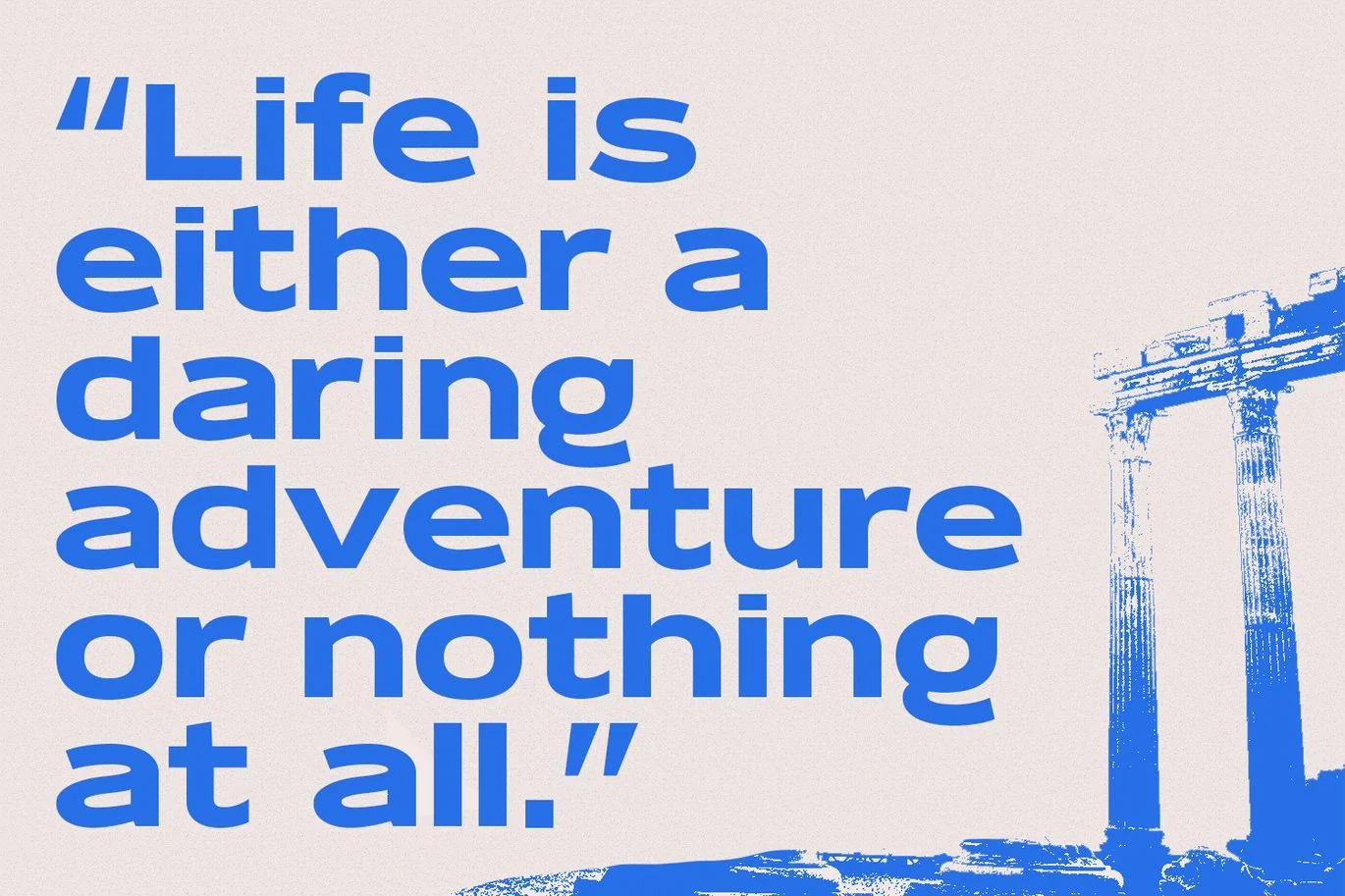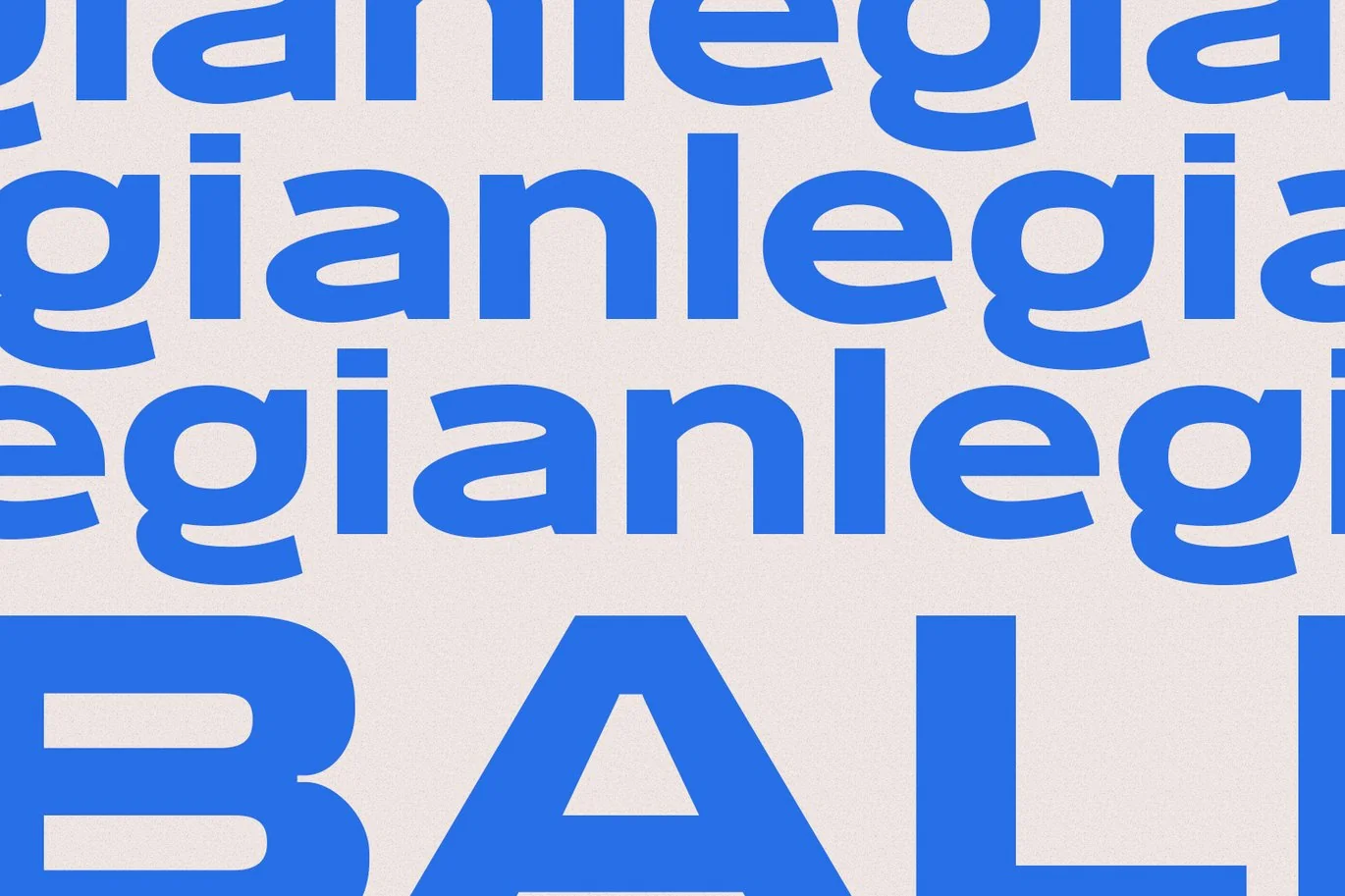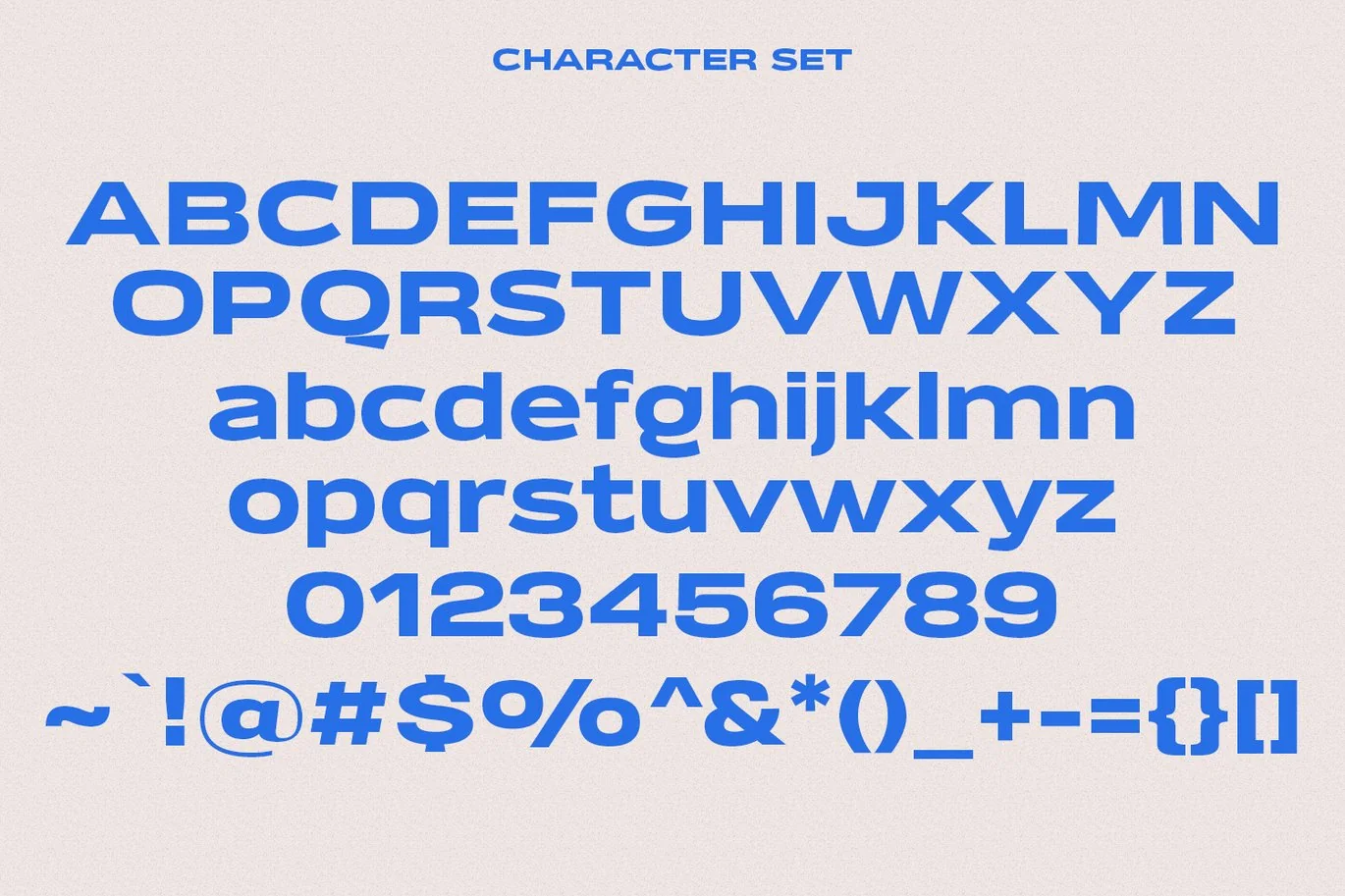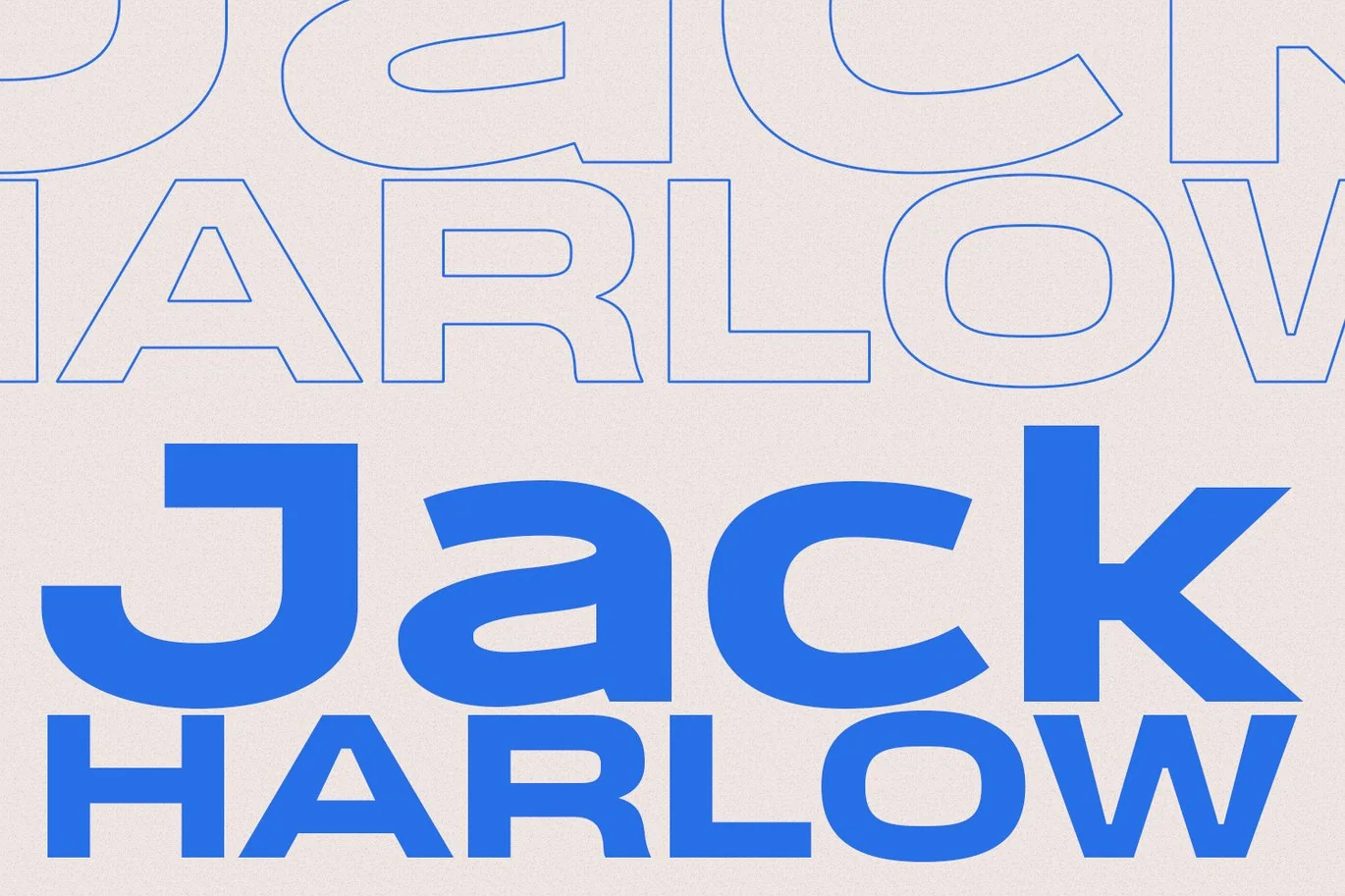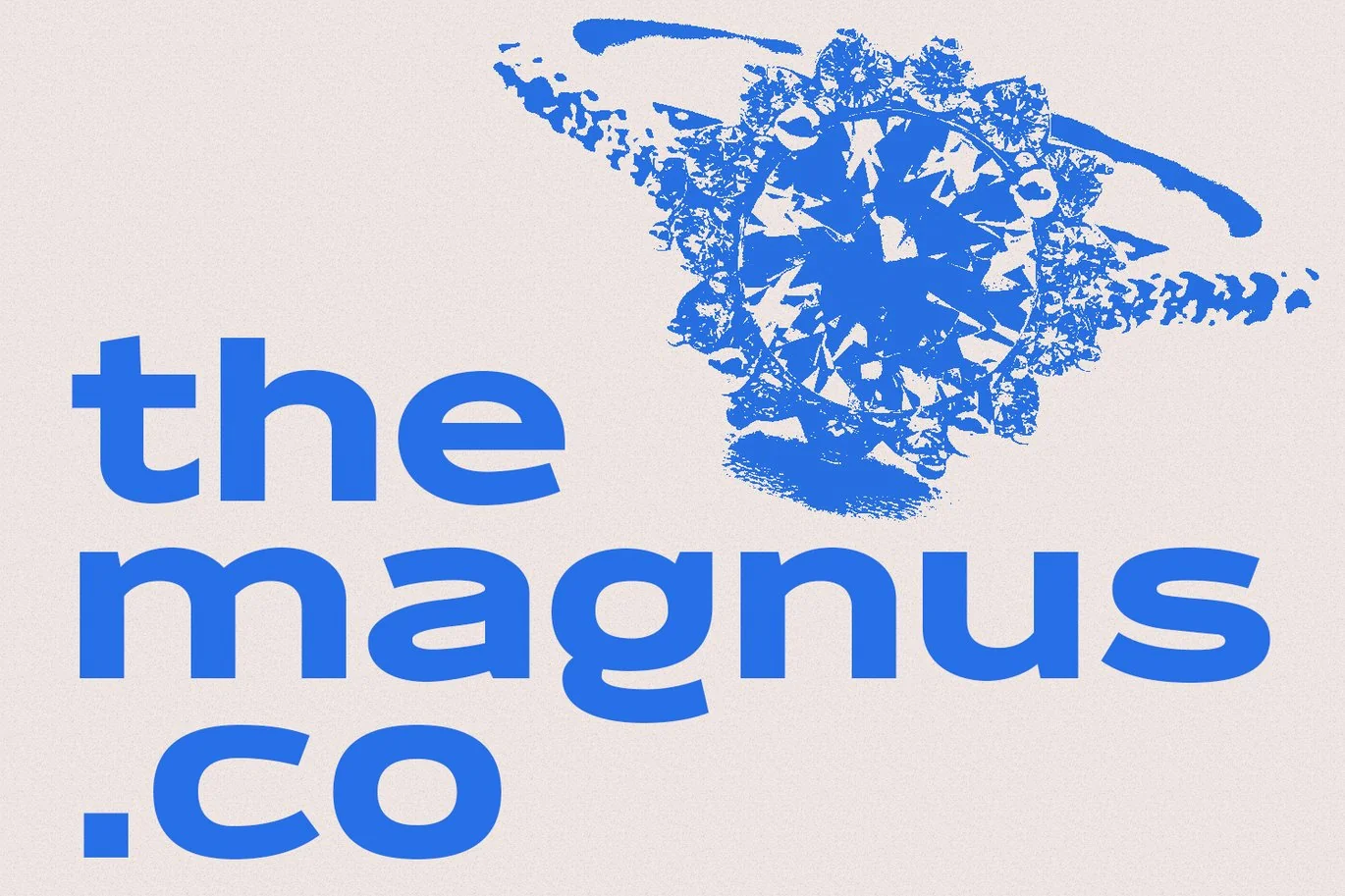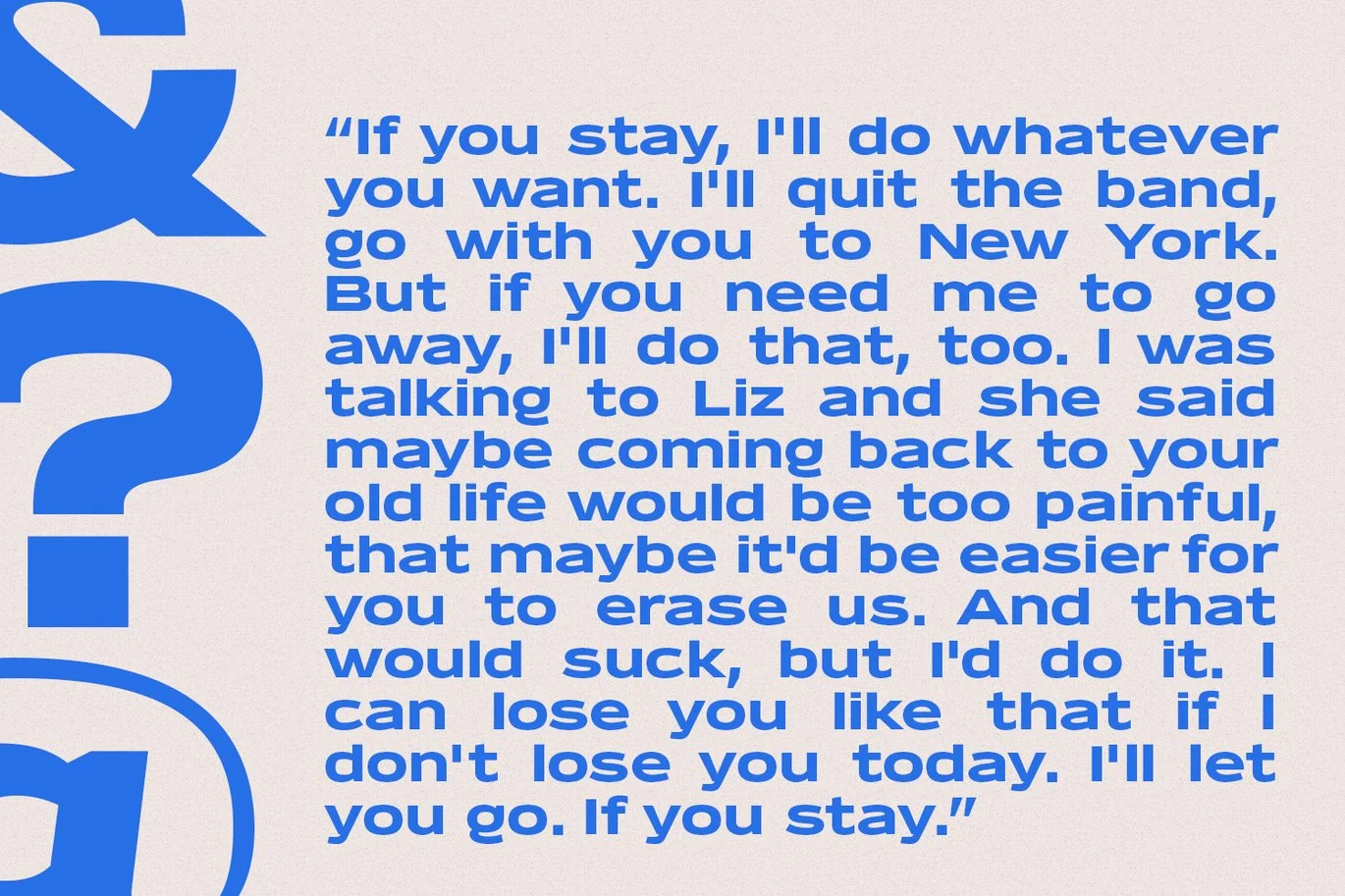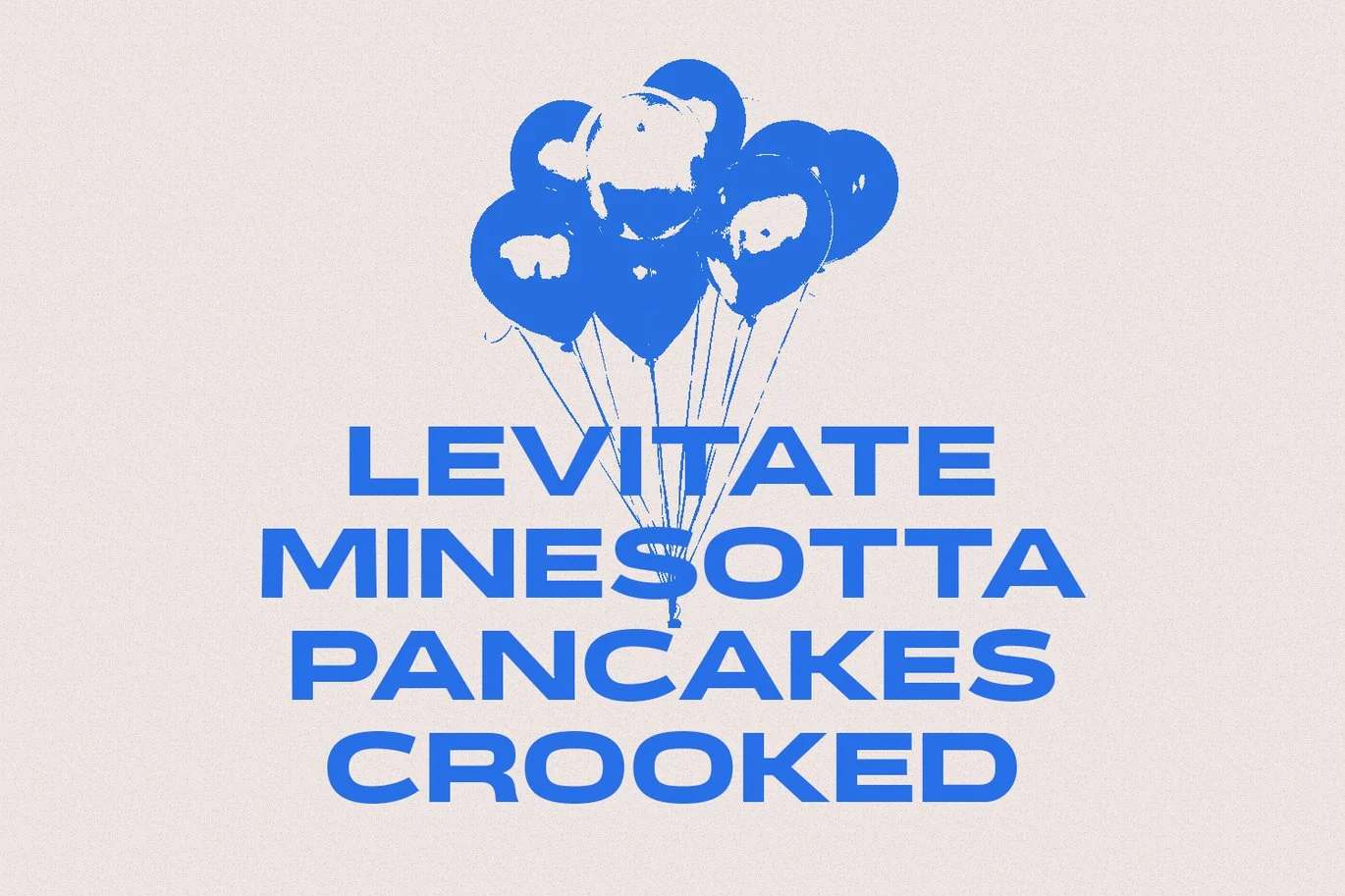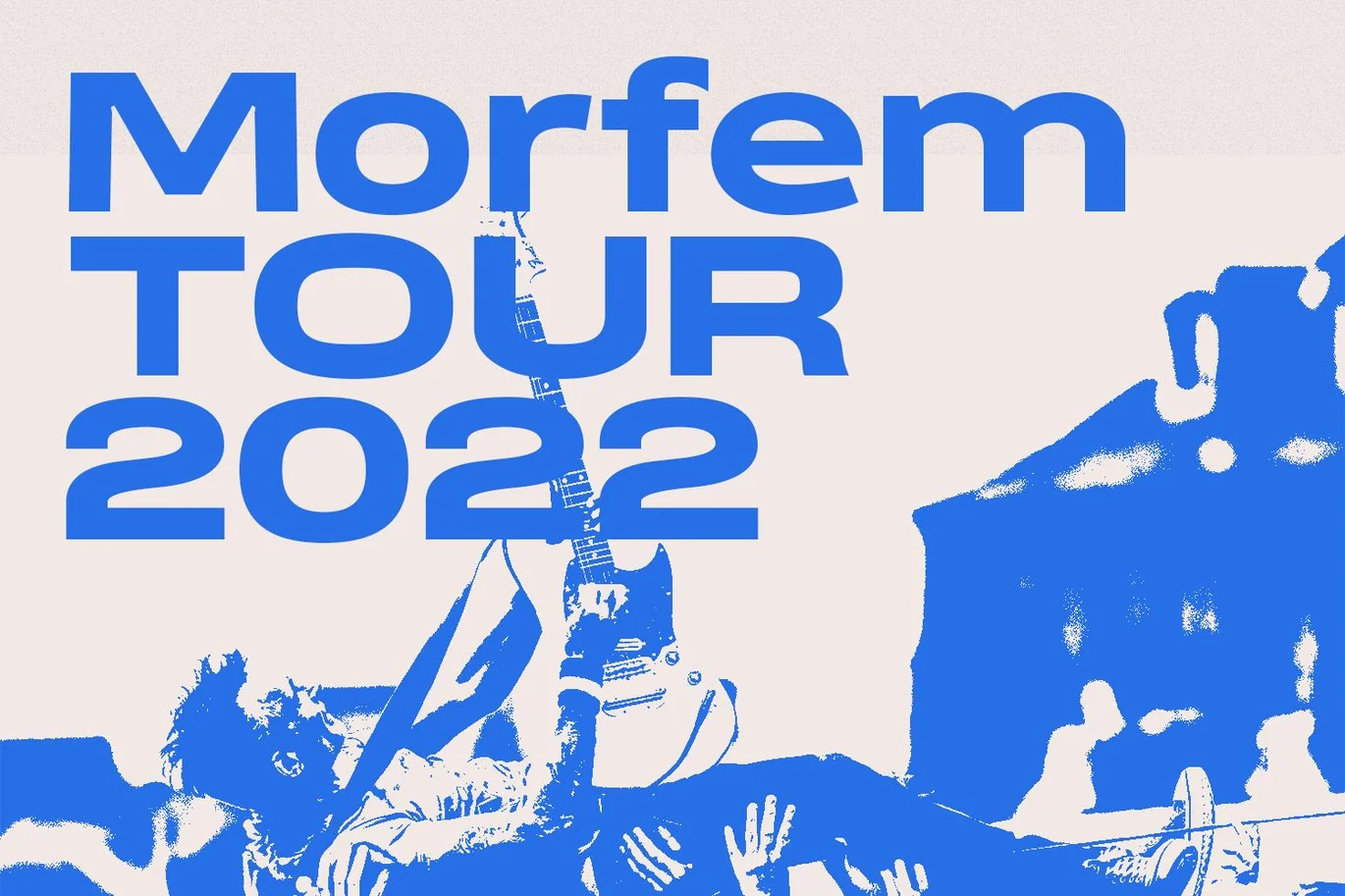
Belgro Display Font
Belgro is a modern sans serif font. With bold stroke, fun character with a bit of ligatures and alternates. To give you an extra creative work. Belgro font support multilingual more than 100+ language. This font is good for logo design, Social media, Movie Titles, Books Titles, a short text even a long text letter and good for your secondary text font with sans or serif. Make a stunning work with Belgro font.